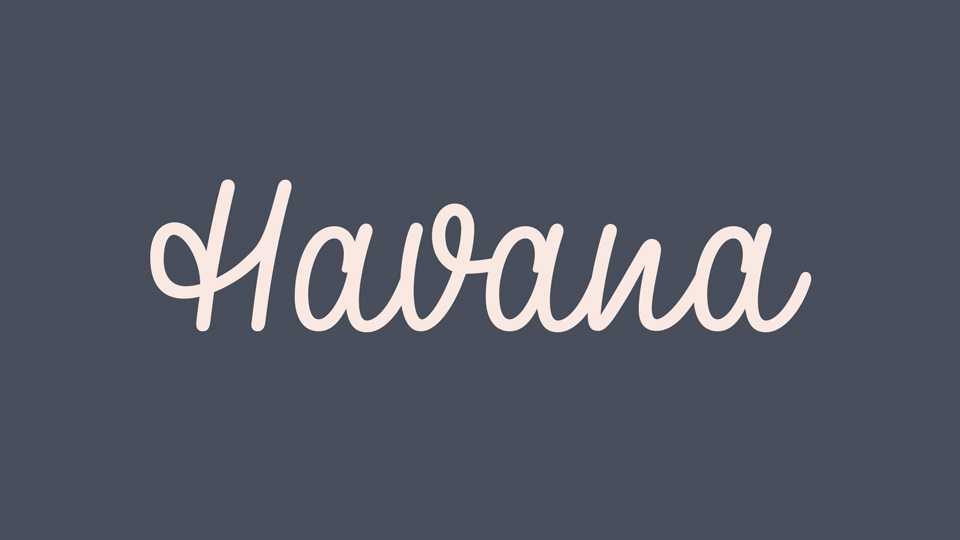
Download Havana font, a monoline script inspired by Warsaw neon signs from before 1989. Just like the lettering of that period, the Havana design is detail oriented, coherent and sophisticated.
Designer: Asia Angulska